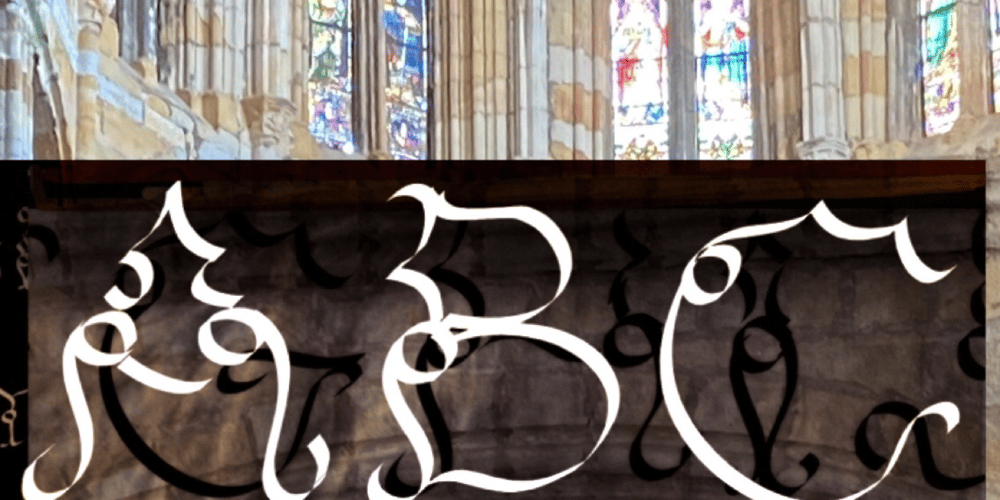
Cap Font Family was designed by Carmen Garriga Ríos and published by giftype. Cap contains 1 styles and family package options. Font Cap is a font based in ancient arches , it has a clear text and Greek and Cyrilics characters .